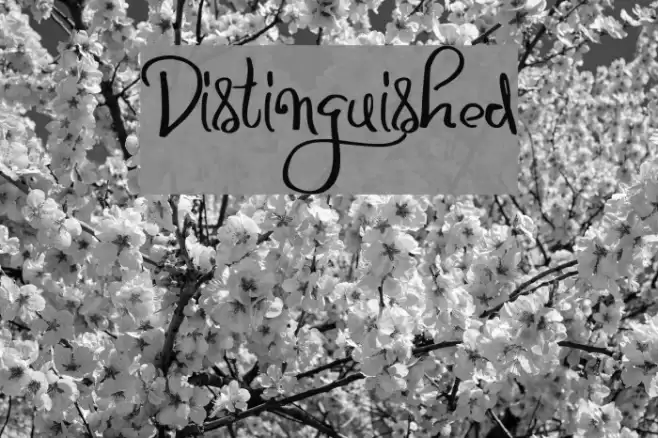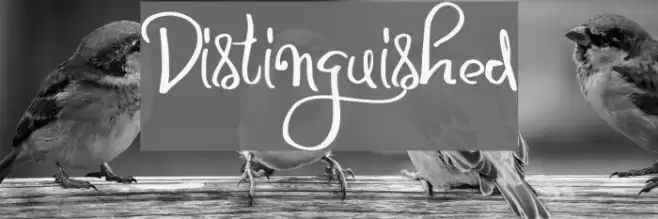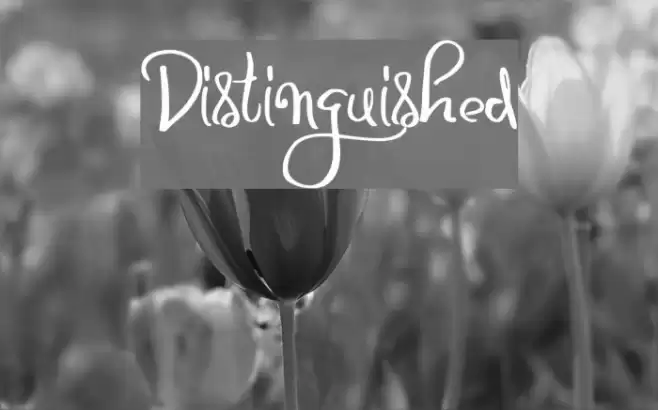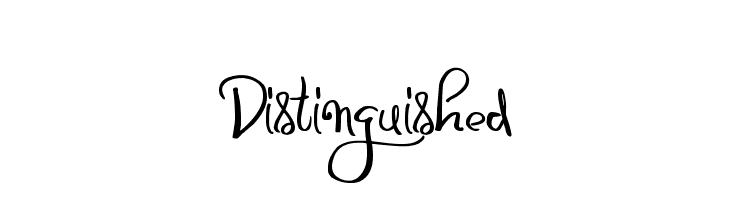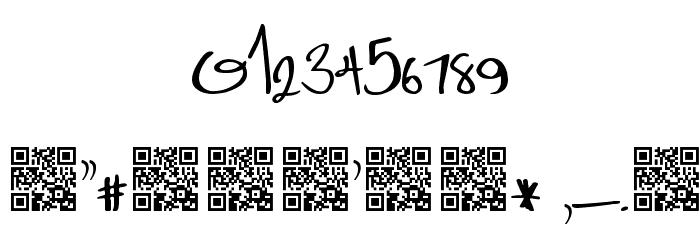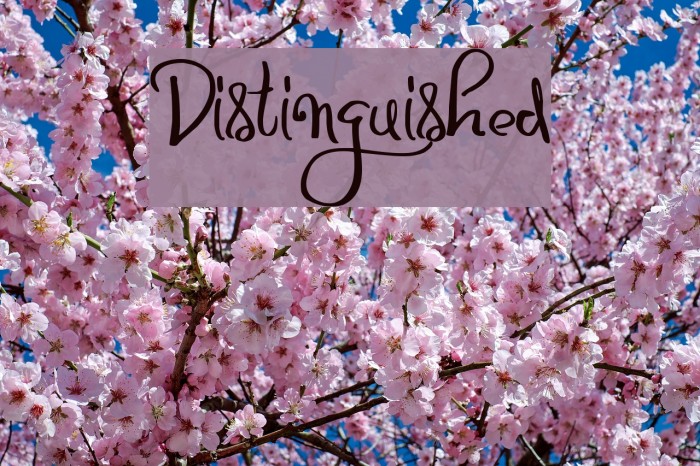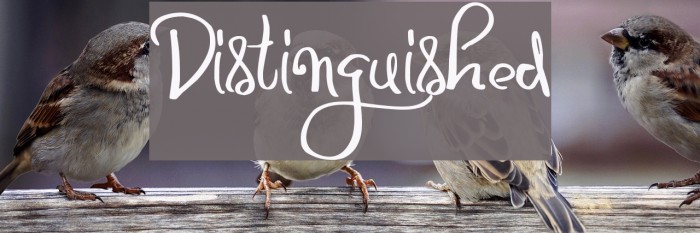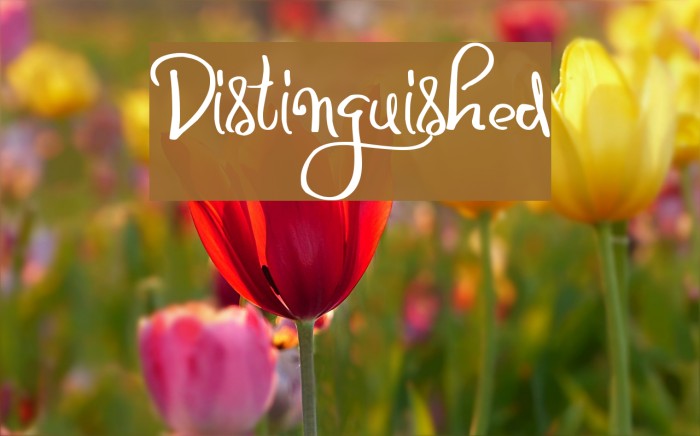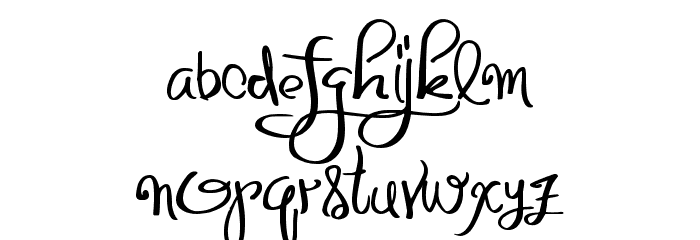
Distinguished Font
Distinguished Description
This font features an elegant and artistic script style, characterized by its flowing and interconnected letterforms. The uppercase letters exhibit a unique blend of curves and loops, creating a sense of movement and sophistication. The lowercase letters maintain a consistent style, with some letters featuring distinctive swashes that add to the overall decorative appearance. The numerals are designed with a similar flair, ensuring they complement the alphabetic characters. Special characters are included, maintaining the font's artistic integrity. This font is ideal for projects that require a touch of elegance and creativity.
An elegant and artistic script font with flowing, interconnected letterforms from Handwritten fonts.
- Proposed Projects: Ideal for wedding invitations, greeting cards, branding, and decorative headlines.
- Use Case: Headlines, Logos, Invitations